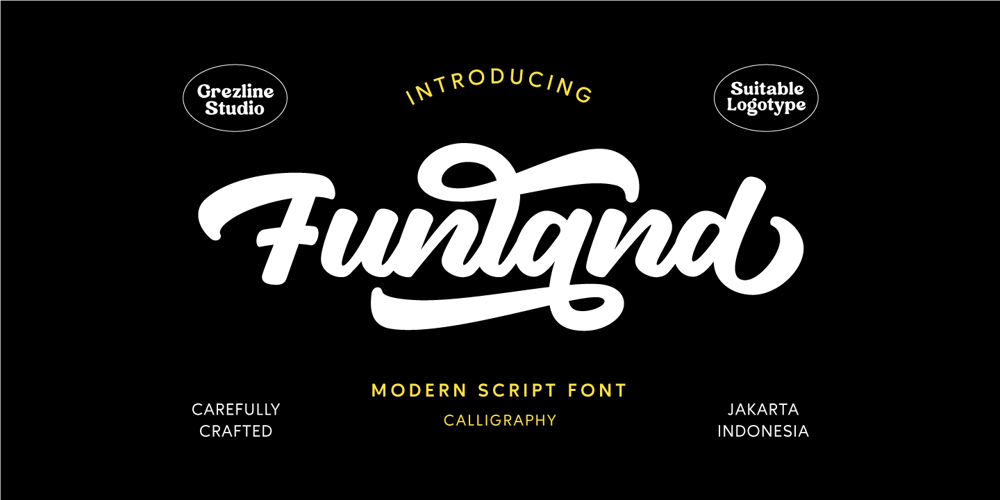
Funland
Funland font
Funland Font Family was designed by Akhmad Reza Fauzi and published by Grezline Studio. Funland contains 1 styles and family package options. Funland is a brand new modern script font.It is a perfect use for logotype, typography design, product packaging, t-shirt design, label poster, headings, letterhead, signage, and anything that need modern taste. You can also mix and pair it with other fonts to provide a unique and fresh looks to your design projects.Feature :- Ligature & Alternate glyphs – Multilingual Language- Works on PC & Mac- Simple installations- Accessible in the Adobe Illustrator, Adobe Photoshop, Adobe InDesign, even works on Microsoft Word.Thank You!Grezline Studio – Akhmad Reza Fauzi